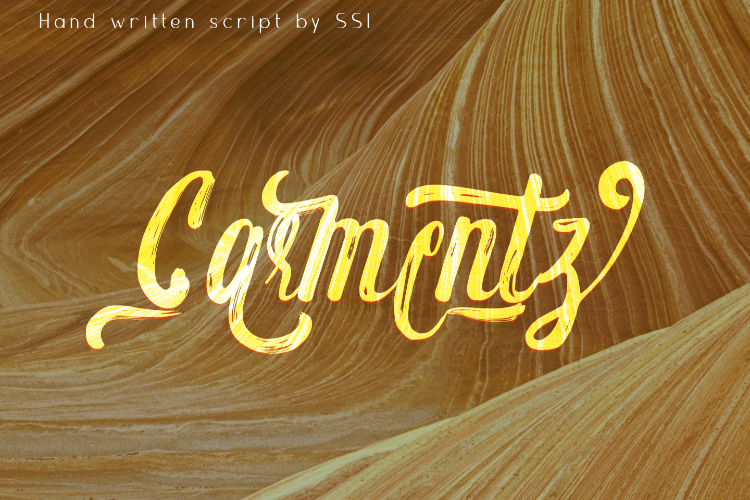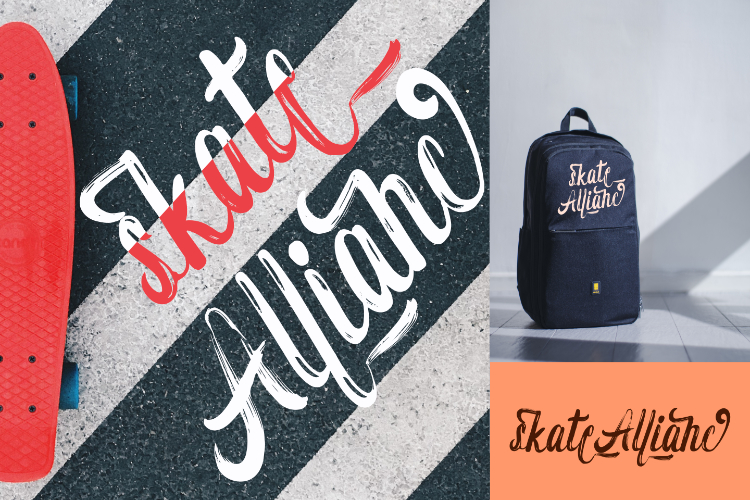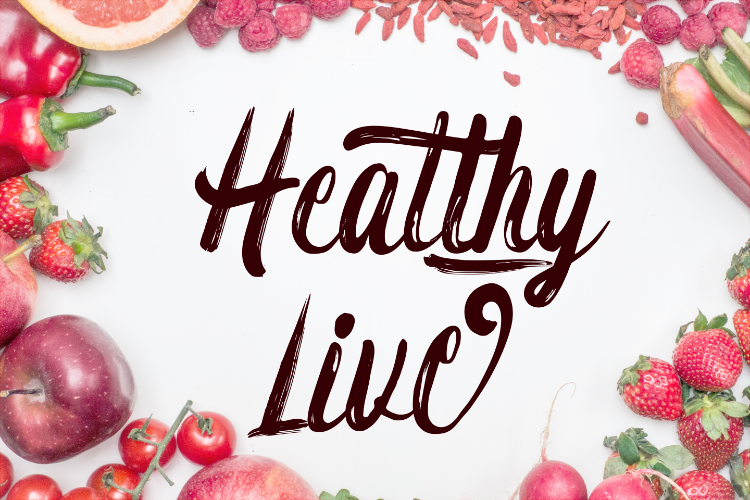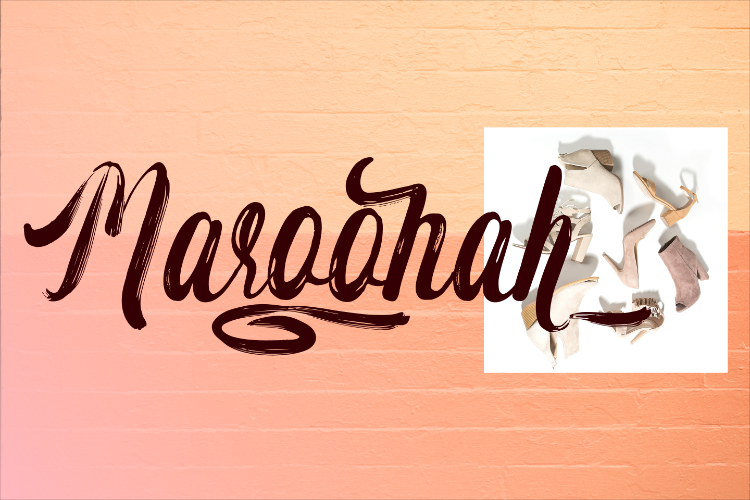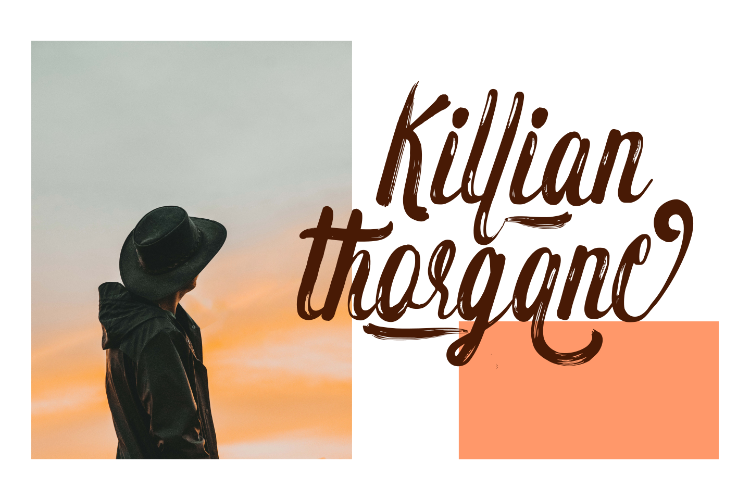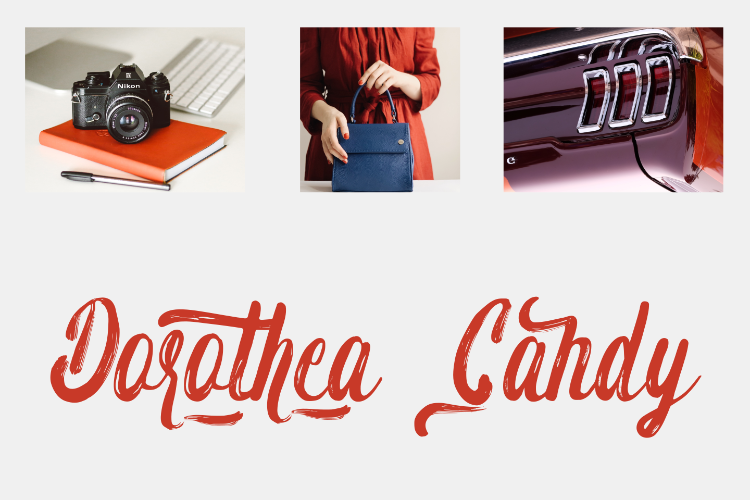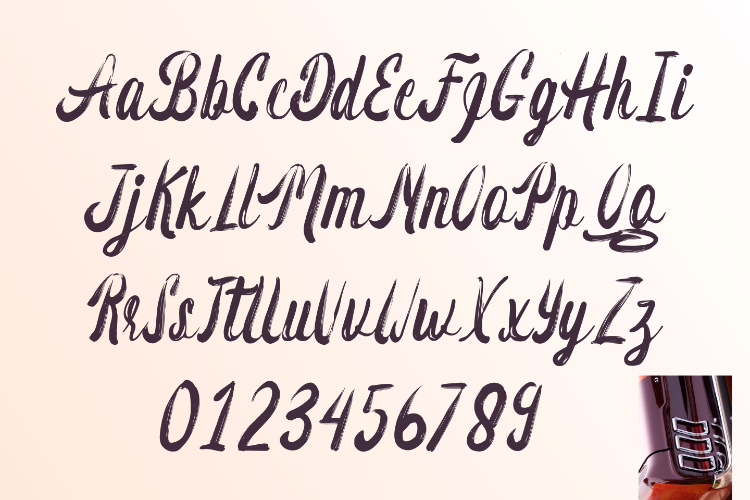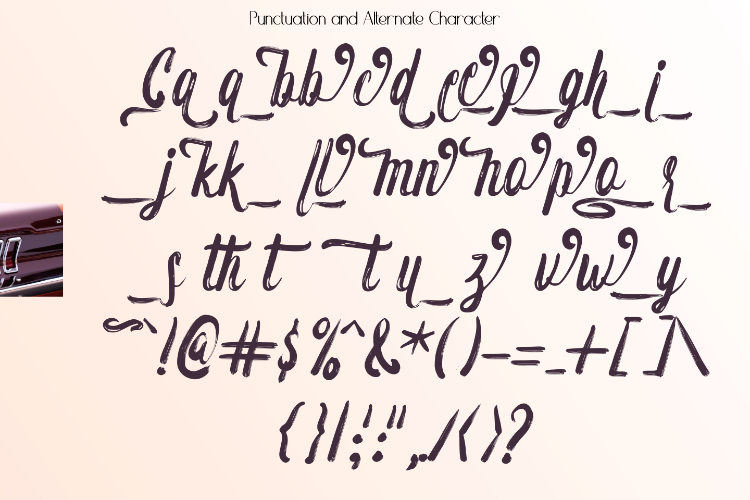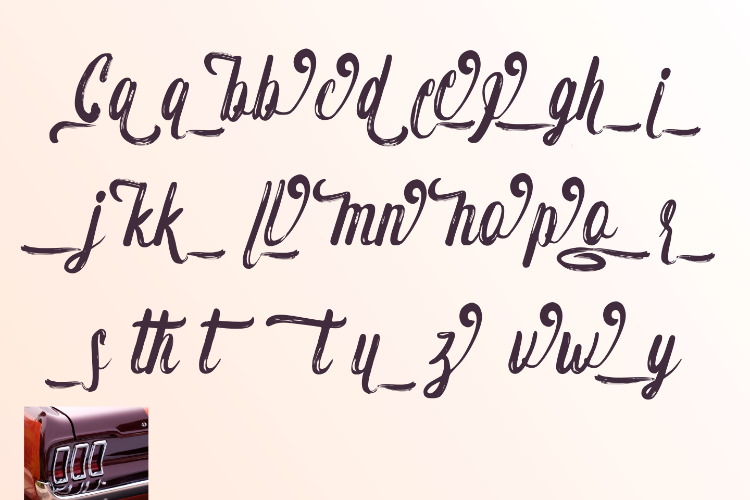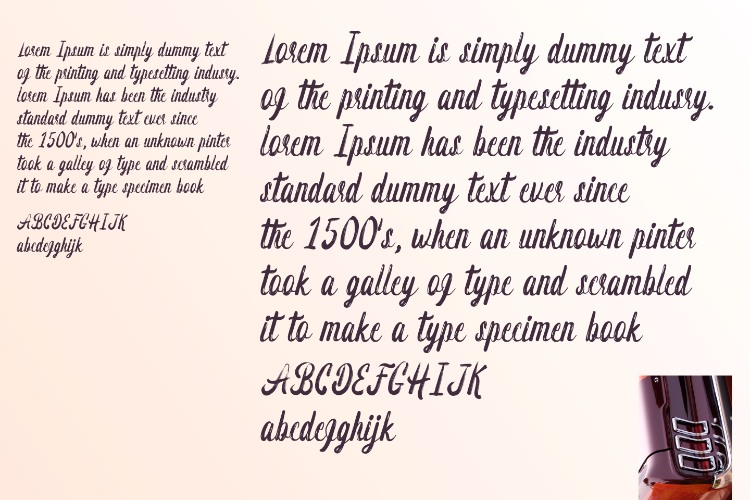
Carmentz is a lovely and delicate script font that exudes elegance and class. This font was particularly crafted for those who need a beautiful and refreshing look to their designs.